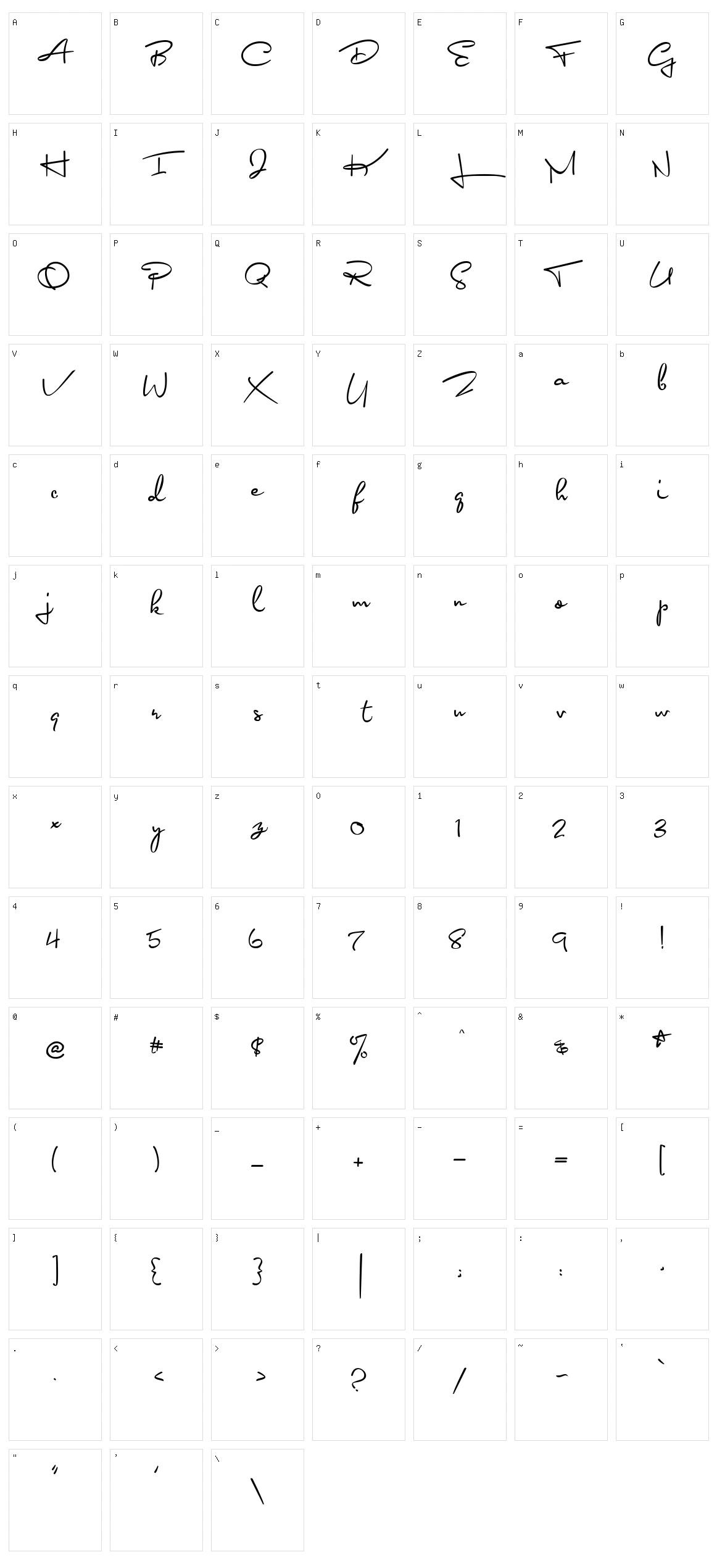
The free font Bonagea is carefully designed by Truelisan, showcasing a thoughtful balance of creativity and usability and falls under the Script font style. When you download the ZIP file, it contains only 25.58 KB of font files, making it lightweight and quick to download. Please review the license details below to understand permitted usage and distribution rights. If license information is not available, we recommend using this font for personal projects only or contacting the author directly for commercial usage permissions.